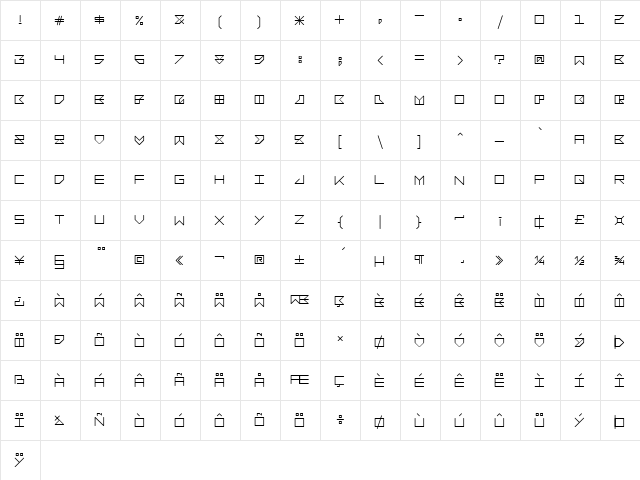
Bacotu Regular
| Designer | Hiep Tong |
Design Context for Bacotu Typeface
Bacotu is a composed and adaptable typeface that performs quietly and consistently across a wide range of design contexts.
Pro Tip: Use Bacotu in both headline and body roles to test its range before committing to a single application.